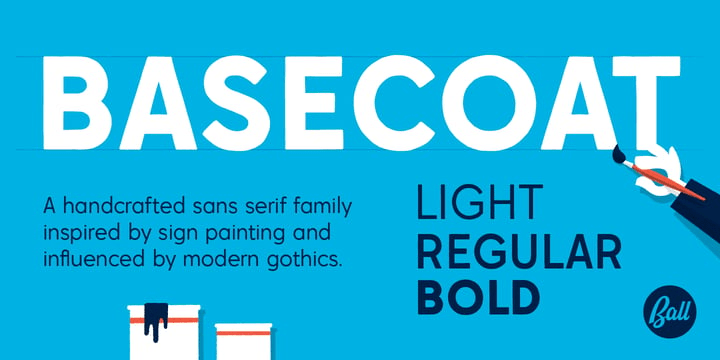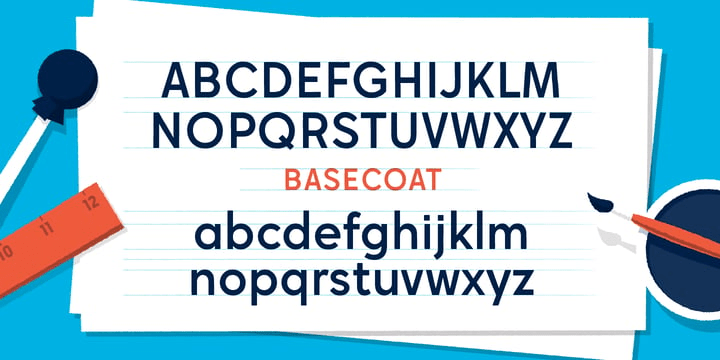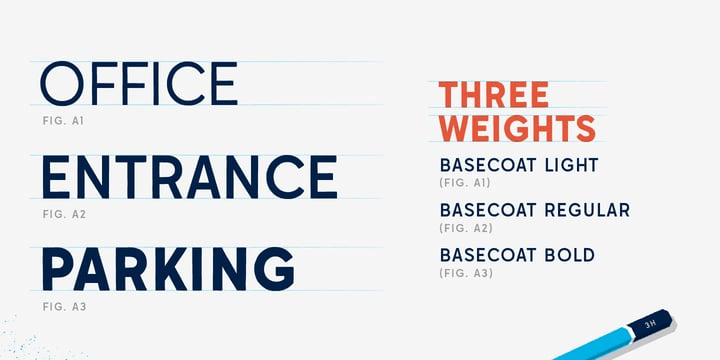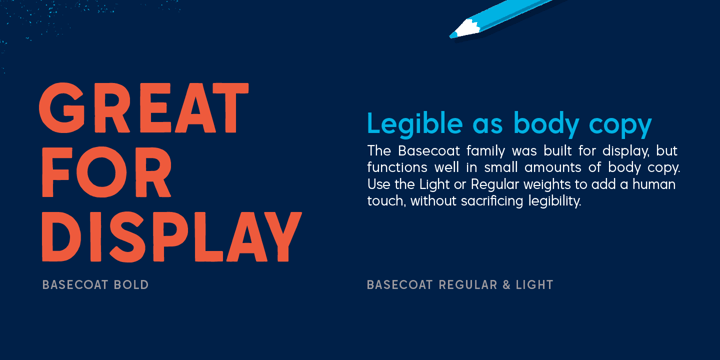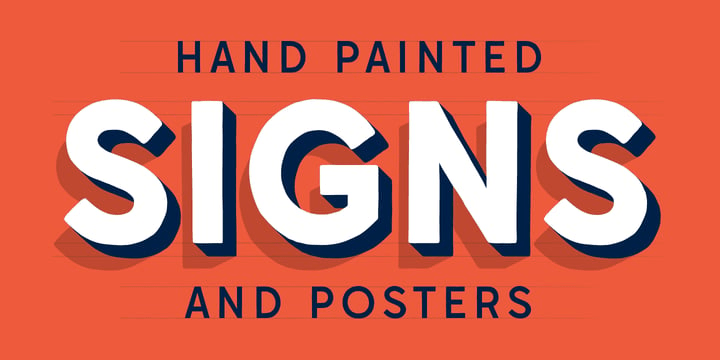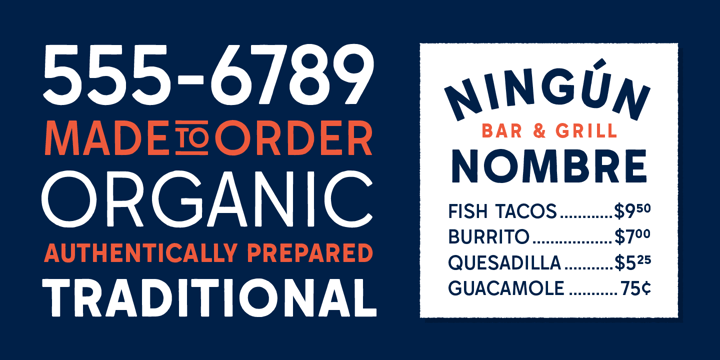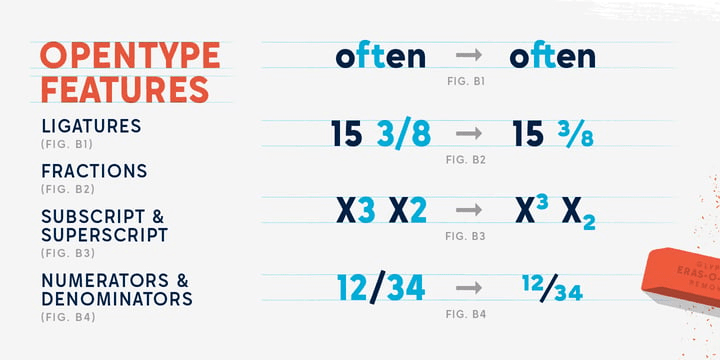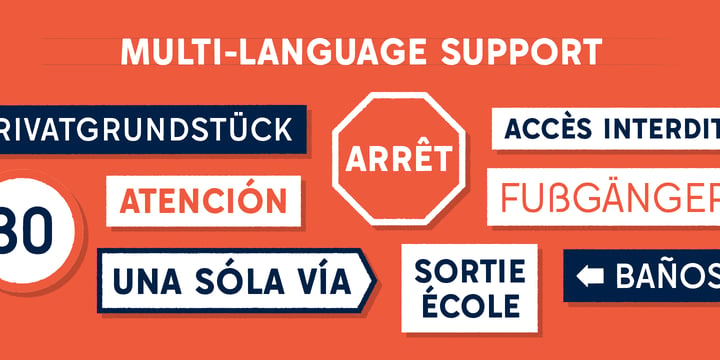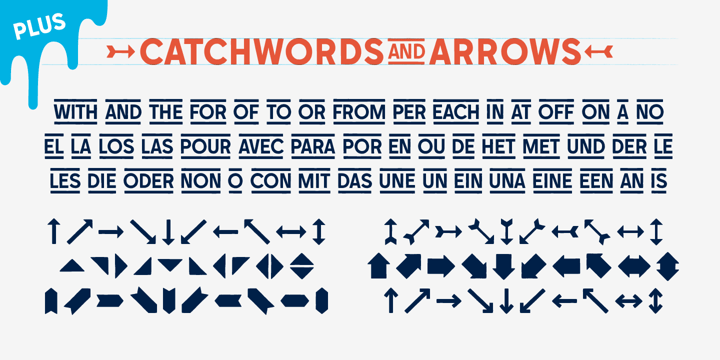
Basecoat
Font Family by Jonathan Ball
Basecoat is a handcrafted, geometric sans serif inspired by sign painting and influenced by modern gothics. It has a subtle organic feel without sacrificing legibility. The design of the uppercase began with chalk marker lettering for a side project and eventually grew into a small type family. Basecoat comes in three weights and includes more than 500 glyphs with European language support. It has popular OpenType features plus catchwords in multiple languages and arrows for all your sign making needs.